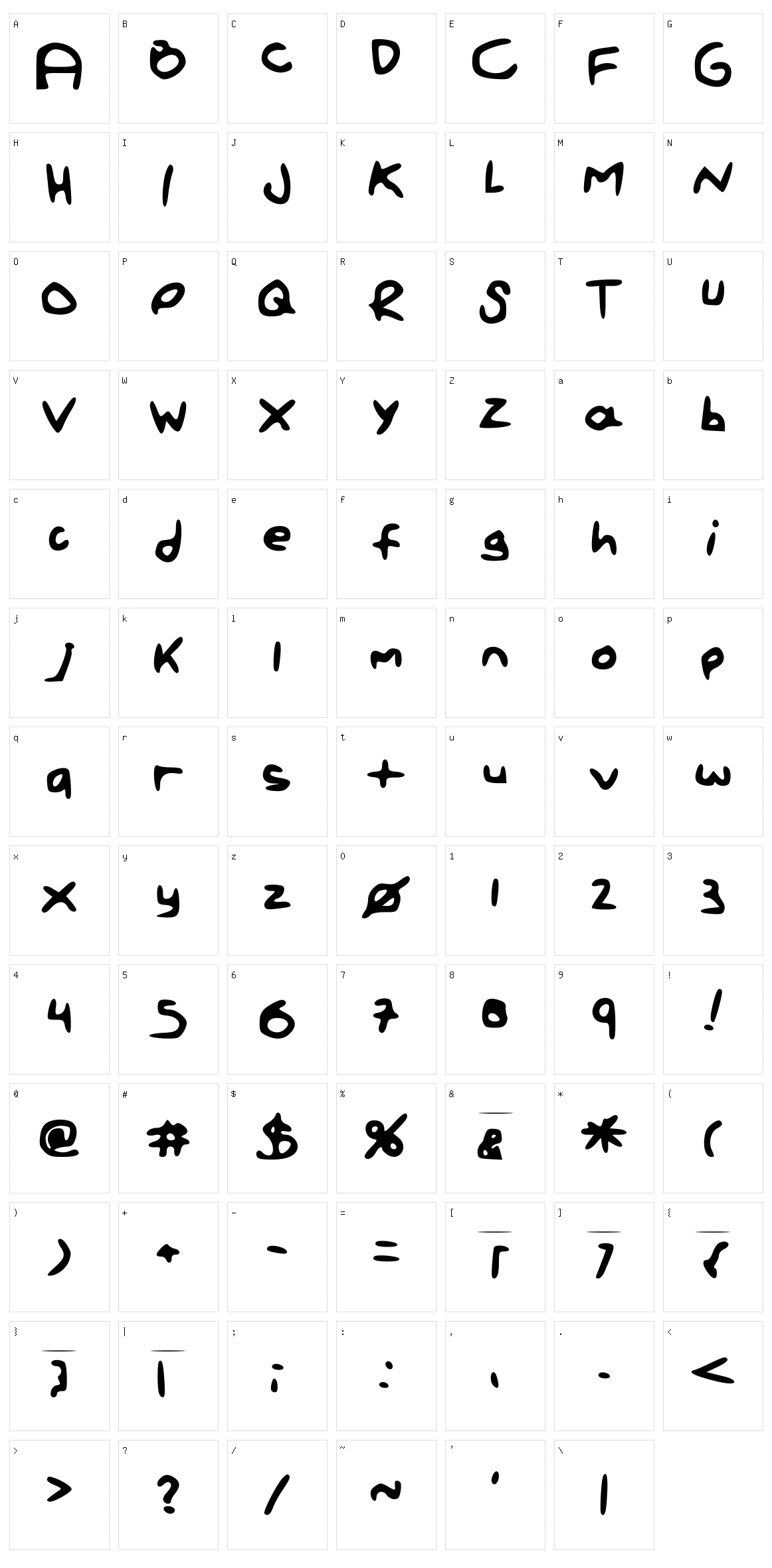
The free font Paint Letters is carefully designed by L Burity, showcasing a thoughtful balance of creativity and usability and falls under the Script font style. When you download the ZIP file, it contains only 17.06 KB of font files, making it lightweight and quick to download. Please review the license details below to understand permitted usage and distribution rights. If license information is not available, we recommend using this font for personal projects only or contacting the author directly for commercial usage permissions.